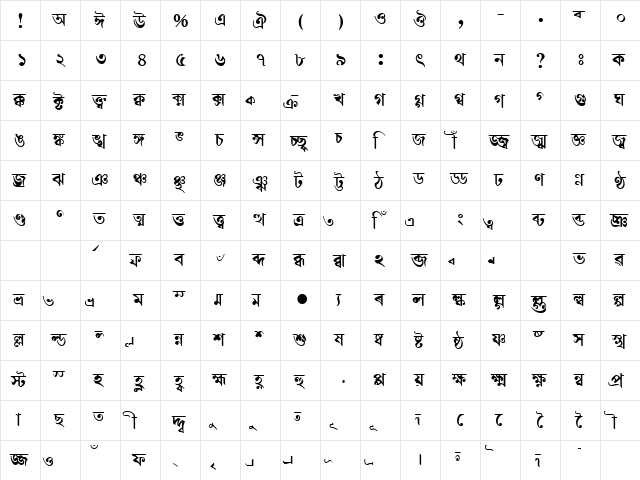
Shree-Ass-0552 Normal
Design Context for Shree-Ass-0552 Typeface
Shree-Ass-0552 is a composed and adaptable typeface that performs quietly and consistently across a wide range of design contexts.